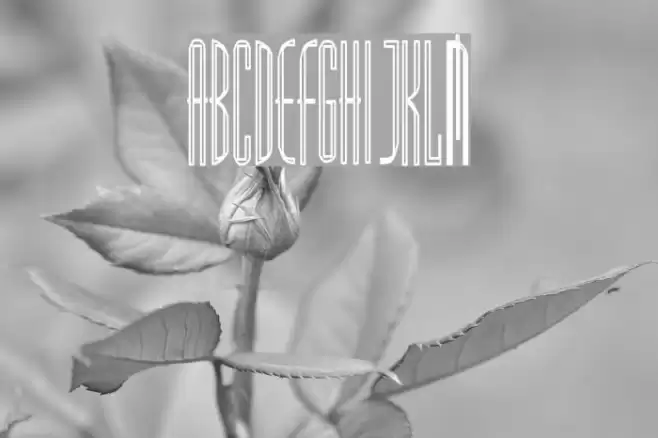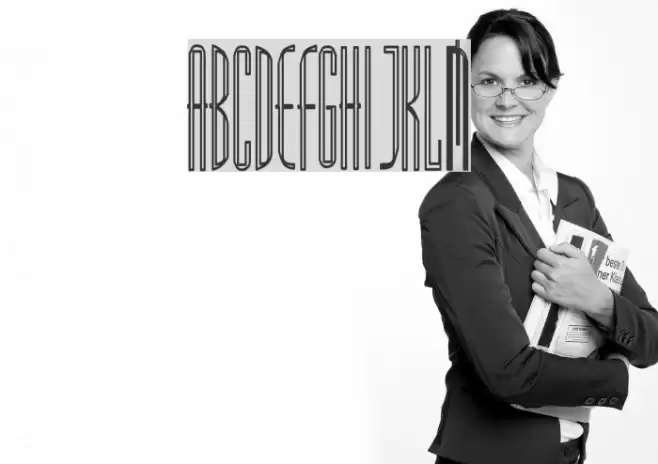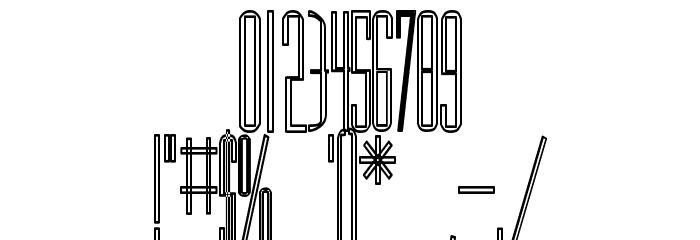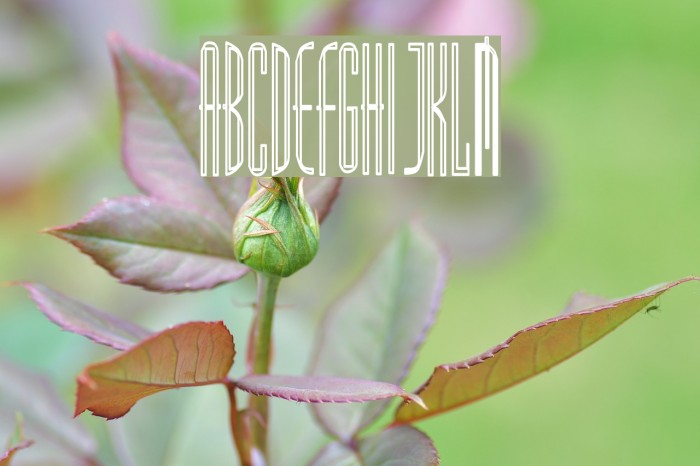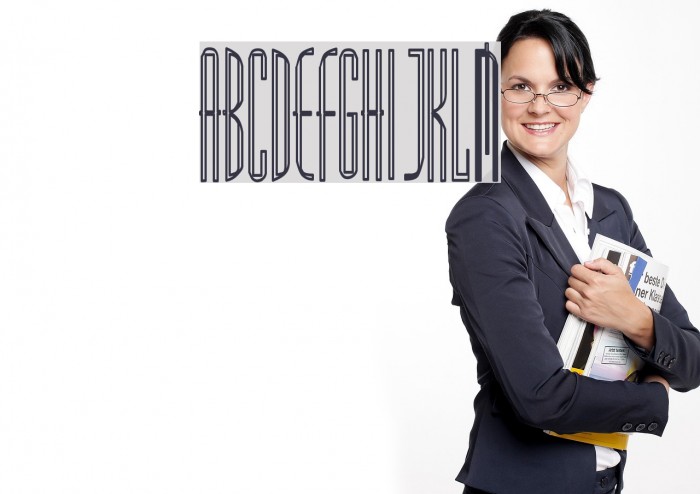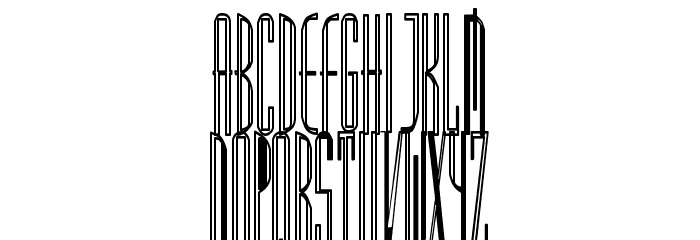
MadridHC Font
MadridHC Description
This font features an ultra-condensed and elongated design, characterized by its tall, narrow letters with minimal spacing between them. The strokes are consistent in width, creating a uniform appearance across all characters. The uppercase and lowercase letters maintain a similar height, enhancing the font's vertical emphasis. The numerals and special characters follow the same design principles, ensuring cohesion throughout the typeface. This font's unique style makes it stand out, offering a modern and artistic flair.
A modern, ultra-condensed font with tall, narrow letters and consistent stroke width from Futuristic fonts.
- Proposed Projects: Ideal for artistic posters, modern branding, and unique logo designs where a striking visual impact is desired.
- Character Spacing: Tight